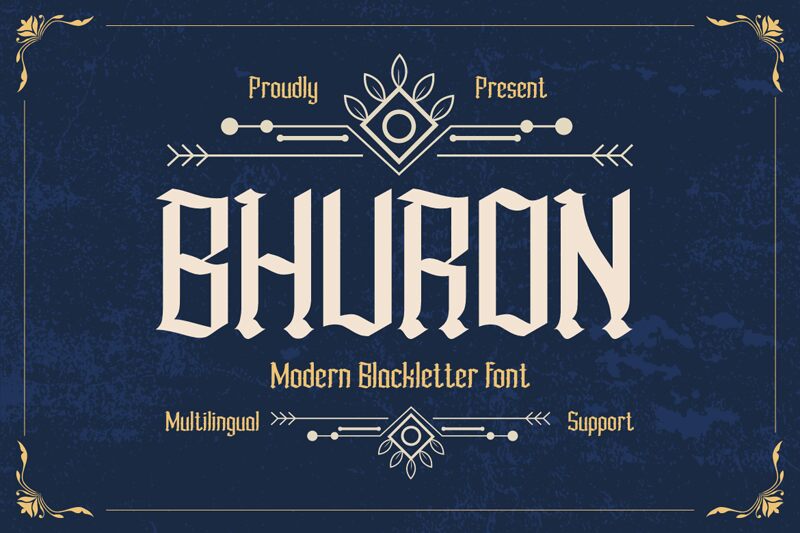
The Bhuron Blackletter Font by twinletter is a modern gothic typeface with a semi-light weight. Its unique style allows for mixing and matching, allowing you to create a truly attractive and one-of-a-kind look.
This font is perfect for a wide range of projects that aim to capture a vintage and elegant aesthetic. Use it to enhance visual projects, create eye-catching titles or banners, or elevate packaging designs with its bold classic appearance.
With its condensed width, the Bhuron font exudes style, elegance, and strong personality in every project it graces.